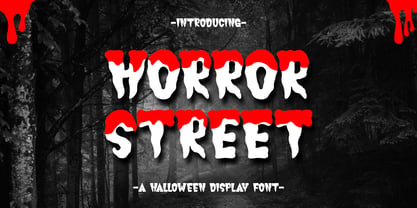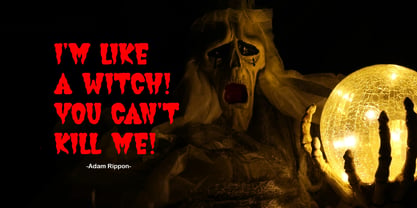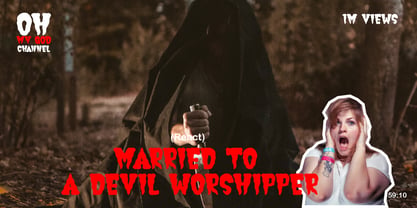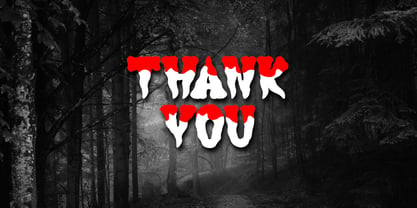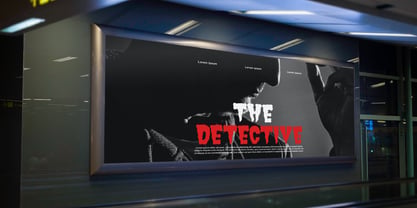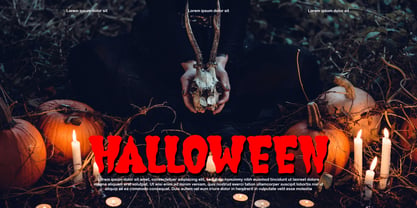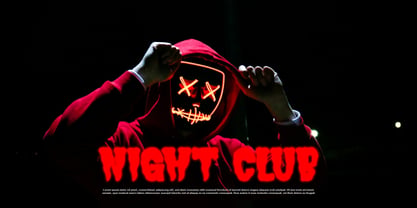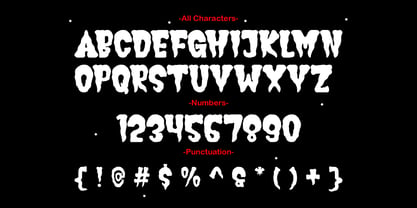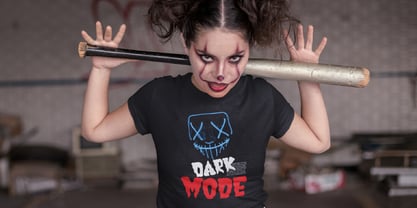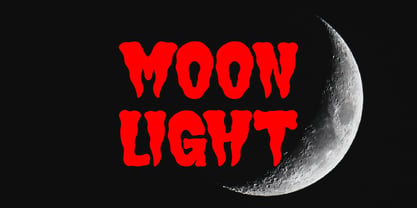
Horror Street
by Patlot Digital Studio
The Horror Street Font Family was designed by Gugun Gunawan and published by Patlot Digital Studio. Horror Street contains 1 styles. More about this family
Horror Street is a Halloween display font inspired by the eerie and mysterious atmosphere of Gothic media, protest, and horror.
This font is perfect for creating unforgettable YouTube videos, movies, haunting quotes, stunning book covers, titles, album covers, unique logos, and cool apparel.
Its versatility also enhances invitations, events, labels, and posters. By using Horror Street as your go-to font, your designs are destined to evoke a sense of wonder and spookiness, not to mention, they’ll be attention-grabbing!
Designers: Gugun Gunawan
Foundry: Patlot Digital Studio